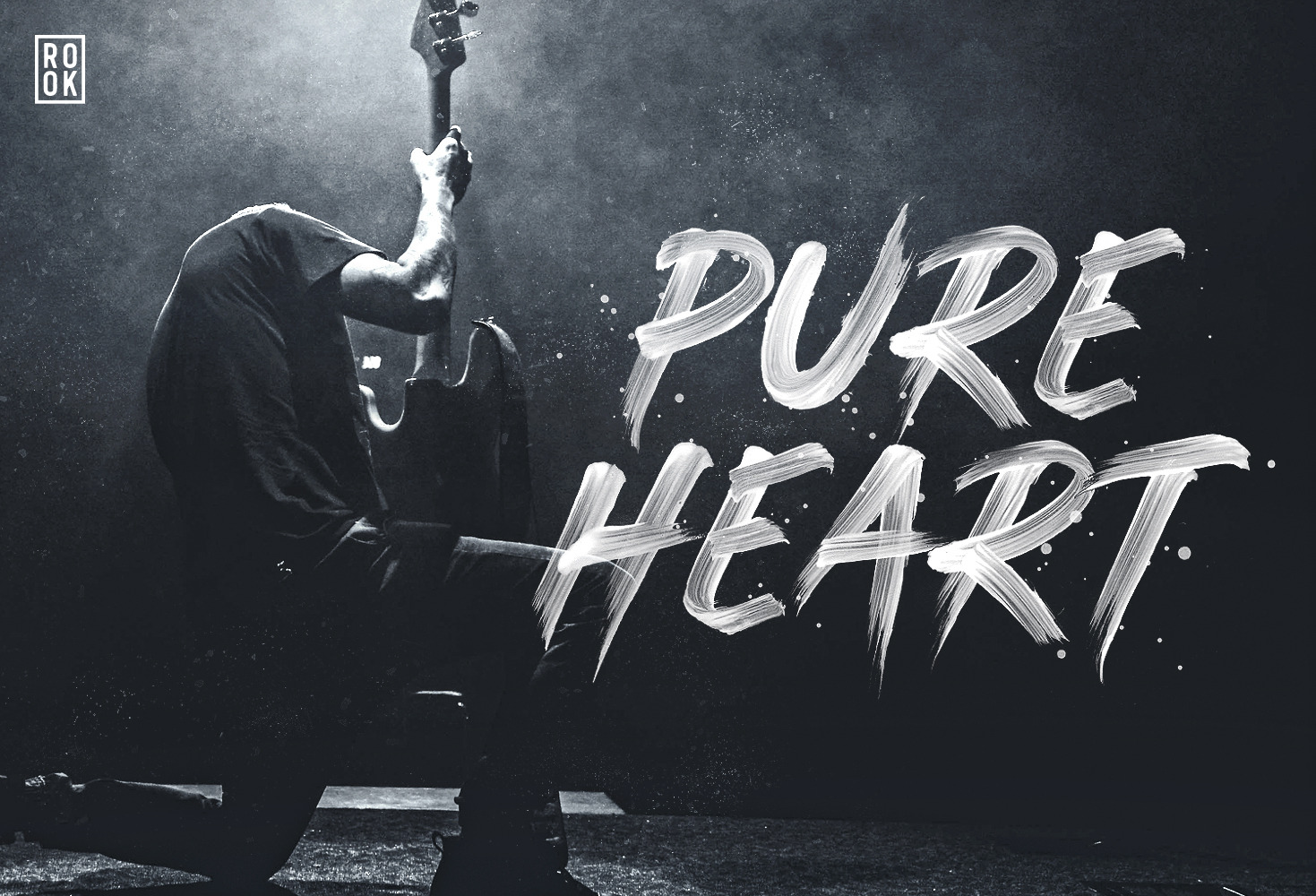
Pure Heart - OpenType SVG Brush Font
Take your design game to the next level with a hyper realistic font that truly looks hand painted. Pure Heart uses brand new technology that makes way for more authentic looking fonts and is sure to grab the attention of customers and designers alike. Each letter was carefully painted dozens of times until deemed perfect, and then edited to get the texture absolutely perfect. Buy Pure Heart today and be on the cutting edge of new font technology.
So how does it work? Instead of vectorizing the letters, Pure Heart uses actual images and transparency effects in order to get the quality that you see. This is all made possible thanks to the latest developments of the OpenType-SVG format, and the integration of that technology into Photoshop CC 2017 and Illustrator CC 2018. Pure Heart installs like any other font, and can be used in any color, on any background. Check out the example video to see everything this font can do!
Regular Font (TTF/OTF) - This is the same font, but a vectorized version, so the texture will look different. This is a great traditional option for use in other programs, including earlier versions of Photoshop. This version is also great for blocks of text and small print.
Brushes - Each character in the OpenType-SVG font is also available as a brush. These brushes are great for users who cannot use the OpenType-SVG font, but want to get the exact same end results.
Swashes/Splatter Brushes - We’ve also included a bunch of underlines and splatters to help spice up your designs.